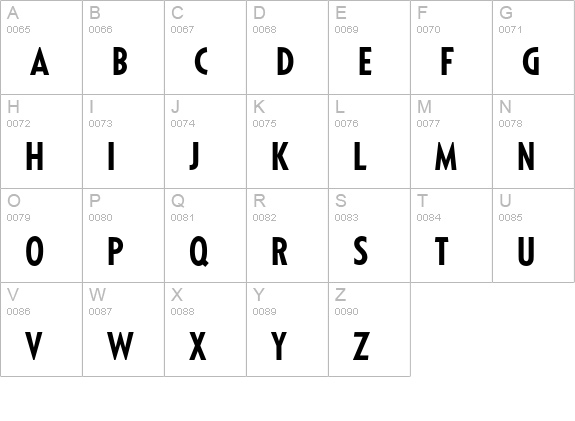
Kabel* STEMPEL Condensed Bold is a strong, high-contrast, condensed-width variant in the Kabel* typeface family \xE2\x80\x94 well suited to headlines, attention-grabbing titles, and strong calls-to-action.
Kabel* STEMPEL Condensed Bold is a modern and versatile font that embodies sophistication and elegance. With its bold and condensed design, this font exudes confidence and strength, making it perfect for headlines, titles, and branding projects. The clean and crisp lines of Kabel* STEMPEL Condensed Bold give it a timeless appeal, while its condensed nature allows for maximum impact in limited space. Whether used in print or digital media, this font is sure to grab attention and leave a lasting impression. But what sets Kabel* STEMPEL Condensed Bold apart is that it is not only visually stunning, but also freely available to download at FontsMarket.com. This means that designers and creatives can access this exceptional font without any cost, making it a valuable asset for any project. With Kabel* STEMPEL Condensed Bold, you can effortlessly elevate your designs to new heights. Its bold and condensed nature gives your text a strong presence, while its sleek and modern aesthetic adds a touch of sophistication. Whether you're designing a magazine layout, creating a logo, or crafting a website, this font will bring a sense of professionalism and style. Download Kabel* STEMPEL Condensed Bold for free at FontsMarket.com and unlock the potential of this remarkable font. Let your creativity soar as you explore the endless possibilities that this font offers. Whether you're a seasoned designer or just starting out, Kabel* STEMPEL Condensed Bold is a must-have addition to your font library.